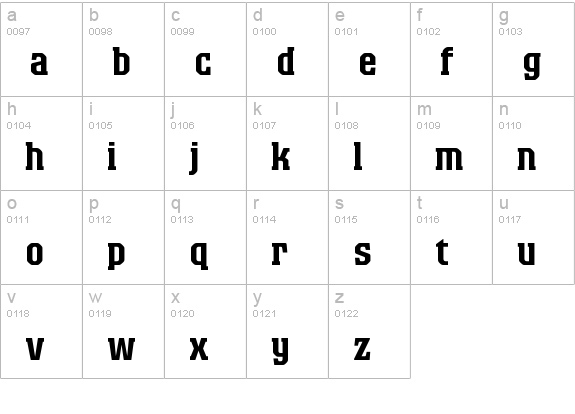
Colossalis Medium is a balanced, medium-weight variant in the Colossalis typeface family \xE2\x80\x94 well suited to sub-headlines, navigation, and balanced editorial work.
Colossalis Medium is a striking and impactful font that commands attention with its bold and powerful presence. With its thick, strong lines and commanding stature, Colossalis Medium exudes confidence and authority in any design project. Perfect for headlines, logos, and large-scale text, this font is sure to make a bold statement. And the best part? Colossalis Medium is available for free download at FontsMarket.com. This means you can add this impressive font to your collection without any cost, making it an excellent choice for designers looking to elevate their projects without breaking the bank. Don't miss out on this fantastic opportunity to enhance your designs with the captivating Colossalis Medium font, available for free at FontsMarket.com.